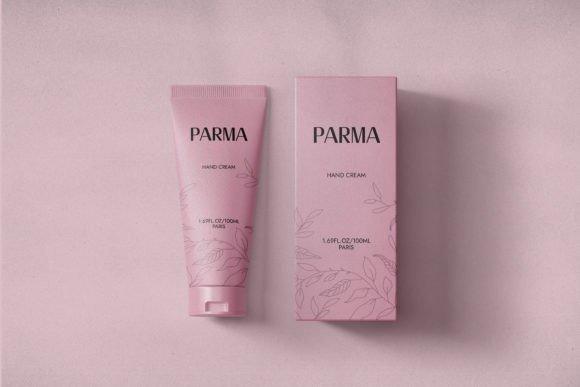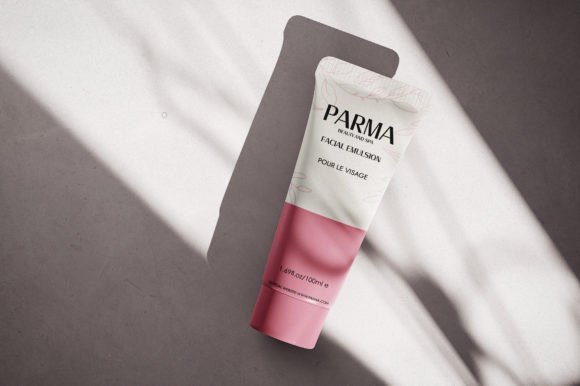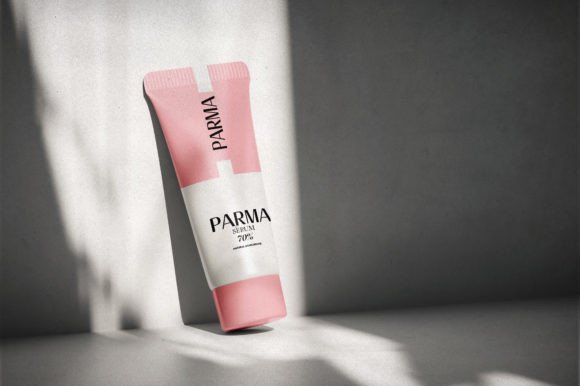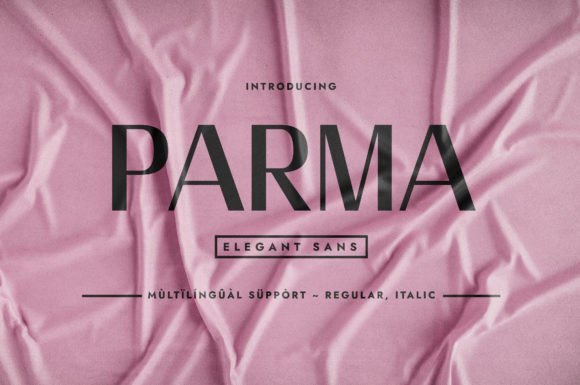
Introduction to Parma Font
Parma is a delicate, minimalistic, and elegant sans serif typeface.
It is an incredibly versatile font and for that reason, it can perfectly suit a lot of contexts such as packaging design, cosmetics, business cards, invitations, weddings, social posts, etc .
Parma Font offers exceptional quality and versatility, making it a valuable addition to your design toolkit. Whether you’re creating for personal projects or commercial use, Parma Font delivers professional results.